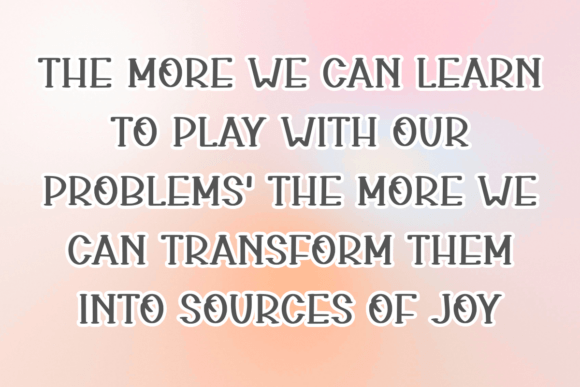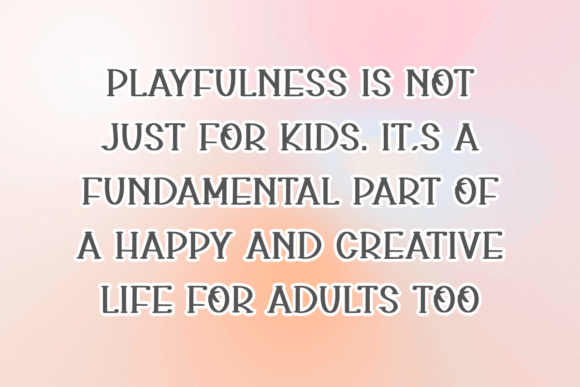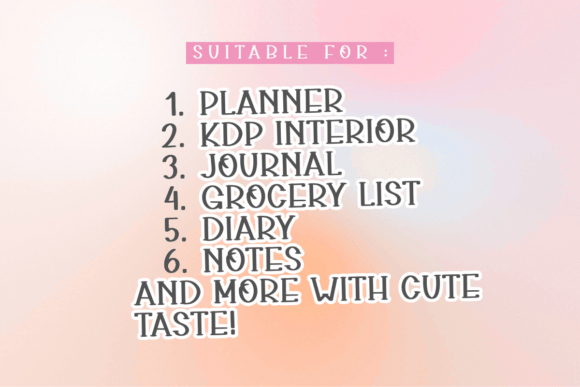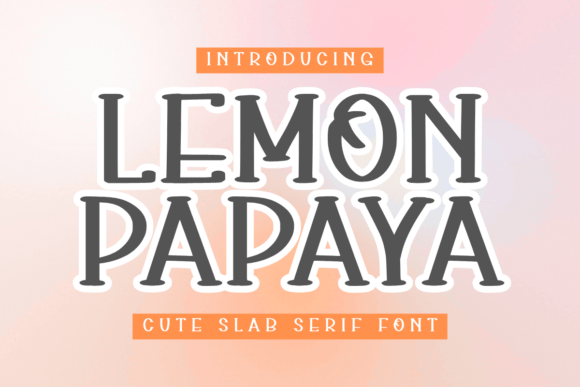
Introduction to Lemon Papaya Font
Lemon Papaya is a cool handwriting font with cute aesthetic natural vibes.
Perfect for cricut, planner, mug, sticker, journal, invitation, greeting card, kdp, scrapbooking, crafting, tote bag, quotes, keychain, notes and more This font brings a playful and cute look to your designs.
Key Features of Lemon Papaya Font